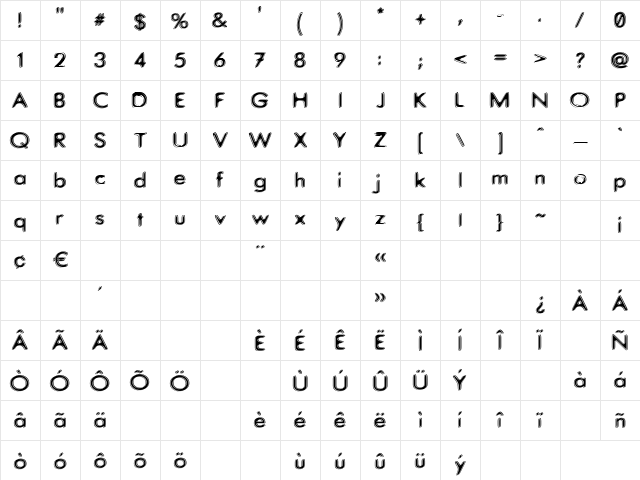
Upon Request Regular
Design Context for Upon Request Typeface
Upon Request takes a measured approach to typography — its balanced proportions and neutral character make it a reliable workhorse for both digital and print work.